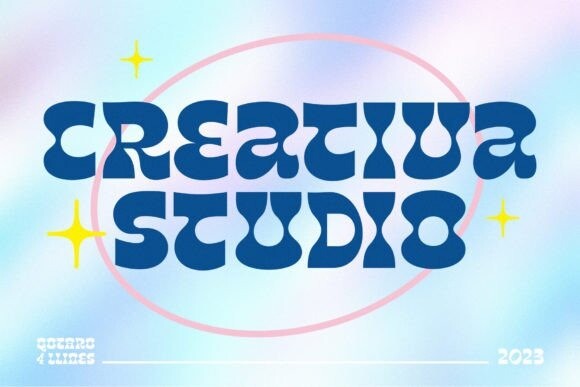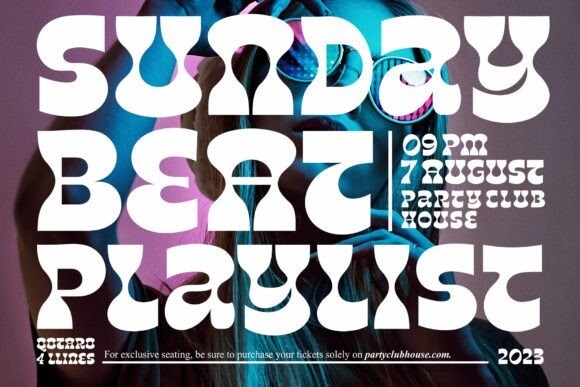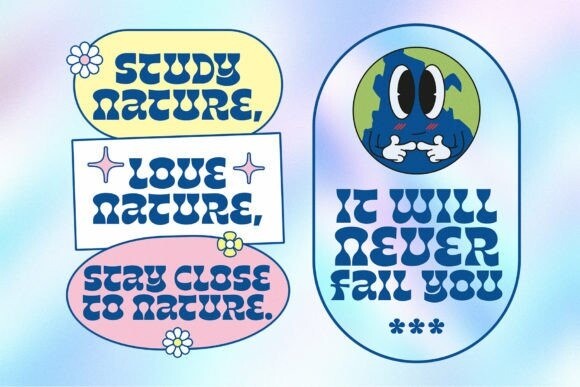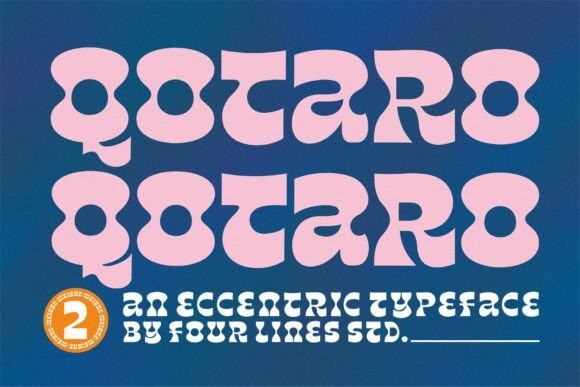
Qotaro Font is a typeface created by Fourlines Design with a groovy retro theme that brings a classic feel and a style that is making a comeback. Its charm is universal, making it a font that resonates with audiences around the world. No matter where you are, elegance is always in style. Elevate your designs to a new level of sophistication with “Qotaro” typeface. It’s the key to adding a touch of retro glamour to your projects.